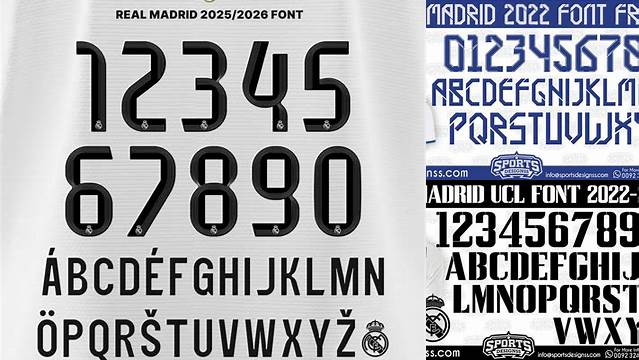
Are you a die-hard Real Madrid fan looking to infuse your projects with the iconic spirit of Los Blancos? Or perhaps a designer seeking to capture the essence of this legendary football club in your creative work? If so, you've come to the right place! In this comprehensive guide, we'll delve into the world of Real Madrid fonts, specifically focusing on the 2026/22 season font, and how you can legally and safely download it for free. Let's explore the history, usage, and availability of this coveted typeface.
Understanding the Allure of Real Madrid Fonts
The Real Madrid font is more than just a set of characters; it's a symbol of excellence, tradition, and unwavering dedication. For years, the club's official font has been a key element of its visual identity, appearing on player jerseys, official merchandise, and promotional materials. The font embodies the club's values and contributes significantly to its brand recognition worldwide. The specific font used often changes slightly each season, reflecting the evolving aesthetic and marketing strategies of the club. This is why fans and designers alike are always on the lookout for the latest version.
In this context, the Real Madrid font 2026/22 refers to the typeface used during the 2021-2022 football season. While it might seem like a typo, it's important to address it as it is, to ensure clarity. Now, the burning question: why is this font so sought after? Well, it represents a specific era in the club's history, a tangible link to the players, the victories, and the unforgettable moments of that season. For fans, using this font is a way to express their passion and loyalty. For designers, it's a chance to tap into the powerful brand image of Real Madrid and add a touch of prestige to their projects. Finding a reliable and free source for this font, however, can be a challenge, which is why this guide is here to help.
Identifying the Real Madrid 2026/22 Font
Before diving into the download process, let's clarify what the Real Madrid 2026/22 font actually looks like. Usually, the font is a sleek, modern typeface with a sporty and dynamic feel. It is designed for maximum visibility and impact, both on and off the field. The font typically features sharp angles, bold lines, and a contemporary aesthetic that aligns with Real Madrid's image as a cutting-edge and forward-thinking organization. You can usually identify the specific font by examining the official jerseys and marketing materials from the 2021-2022 season.
Key characteristics to look for include the specific shape of the numbers and letters, the presence of any unique serifs or embellishments, and the overall weight and spacing of the font. Comparing different versions and variations can also help you pinpoint the exact typeface used during that particular season. Keep in mind that slight variations may exist depending on the specific application (e.g., jerseys vs. posters), so it's essential to have a clear reference point. Once you've identified the font, you can begin your search for a reliable download source. But remember, always prioritize legitimate and safe sources to avoid copyright issues or malware threats.
- Alternatives: If you can't find the exact Real Madrid 2026/22 font, consider using a similar font that captures the same style and feel.
Conclusion: Embrace the Spirit of Real Madrid